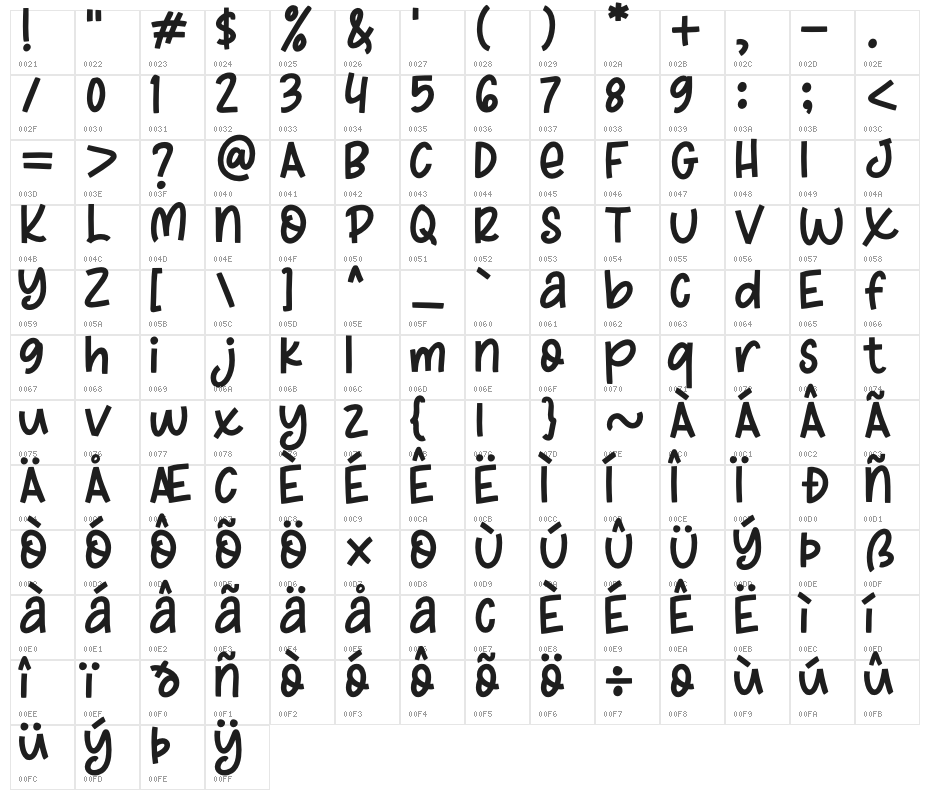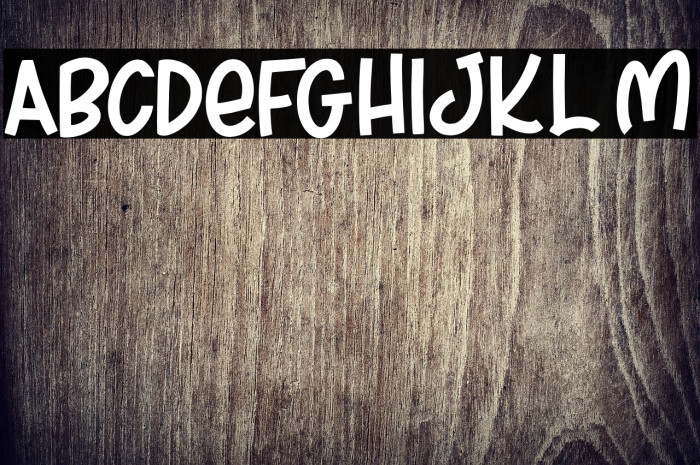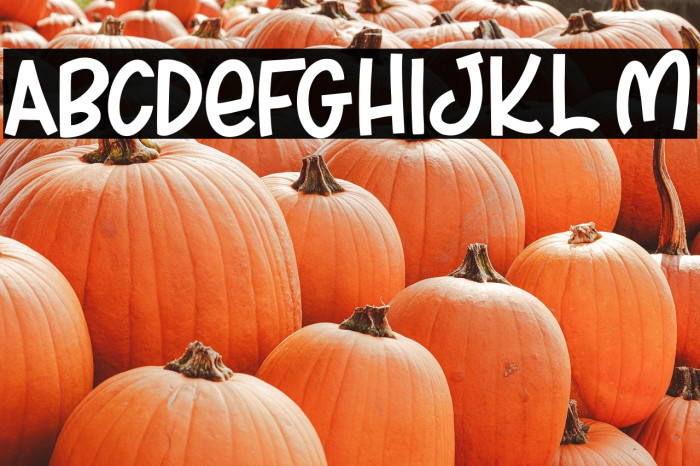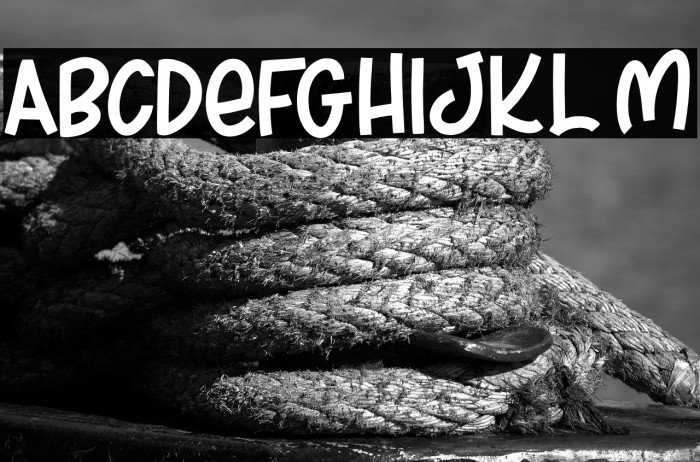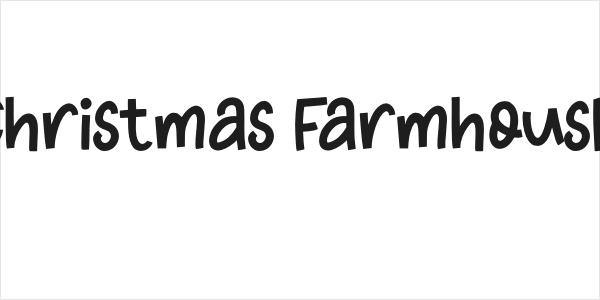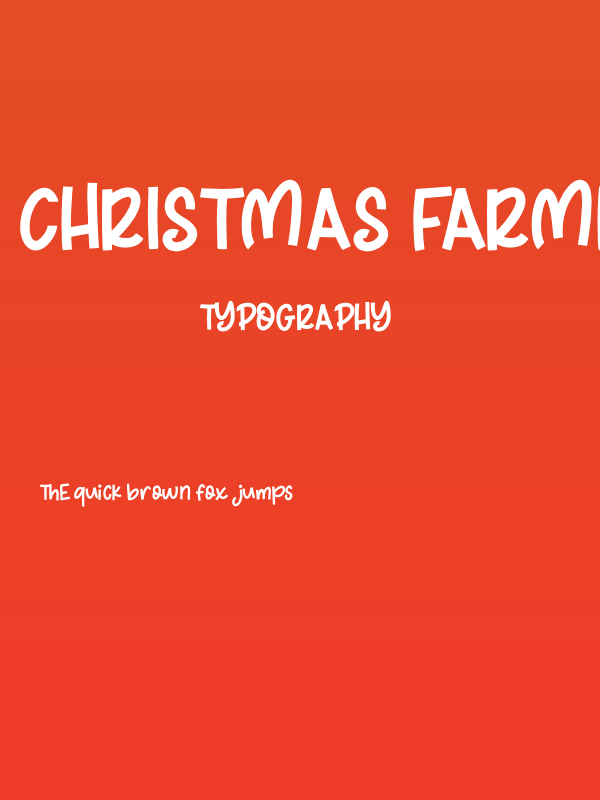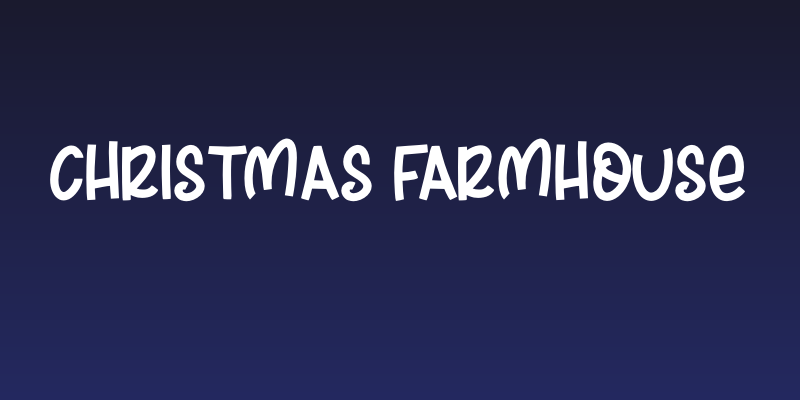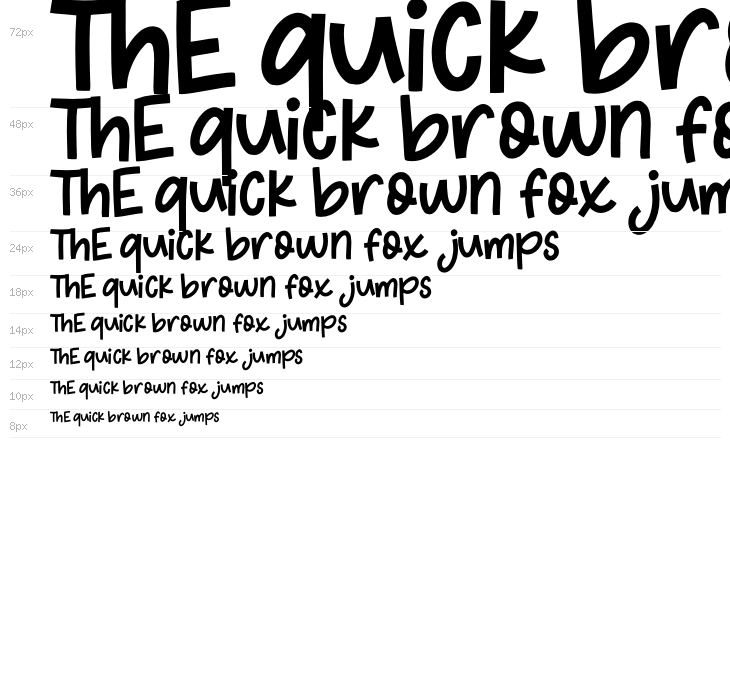
Christmas Farmhouse Font
Christmas Farmhouse Description
This font features a playful and whimsical style, characterized by its bold and rounded letterforms. The uppercase and lowercase letters exhibit a hand-drawn quality, with slight variations that add to its charm. The numbers are equally bold and maintain the same playful aesthetic. Special characters are included, maintaining consistency with the overall style. The font's informal and friendly appearance makes it suitable for projects that require a touch of fun and creativity. Its boldness ensures readability, while the unique character shapes provide a distinctive look.
| Use Case | Headlines, Logos, Crafts |
| Proposed Projects | Ideal for children's books, greeting cards, playful branding, and DIY crafts. |